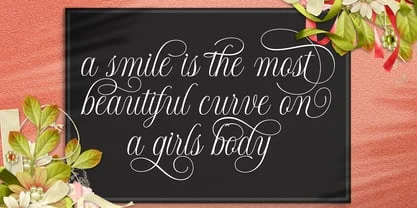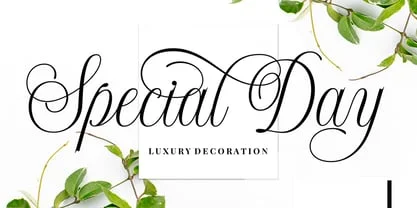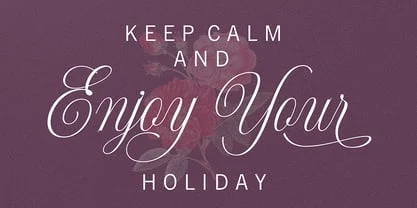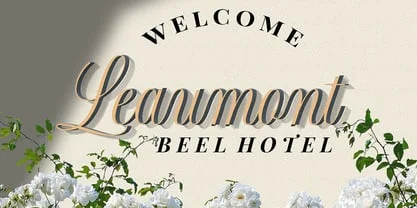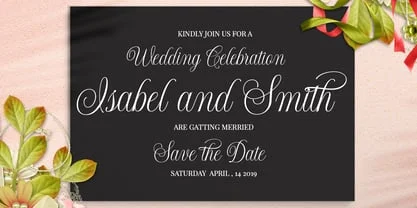
Shintosa Script Font
Typography shapes perception at a subconscious level. Shintosa Script leverages the kind of restraint that lets content lead to make every composition feel considered. The typeface brings an elegant, calligraphic sensibility to a broad range of creative disciplines, with controlled contrast that rewards close inspection that holds up whether the work is print-first or screen-first.
In practice, Shintosa Script proves particularly effective for fragrance labels, perfume labels, event signage, wedding invitations, signage systems. Designers reaching for it find that the type decisions feel resolved rather than laboured — a useful quality when client timelines are tight.
The range of applications extends to web design, editorial layouts, packaging design, logo design. That breadth is deliberate: the proportions and spacing were stress-tested across a wide range of mock briefs before the typeface was finalised.
UX designers establishing typographic systems for digital products find Shintosa Script a reliable choice for projects that demand both personality and restraint. The design avoids the self-conscious quirkiness that dates quickly, settling instead for considered distinctiveness that holds up over time.